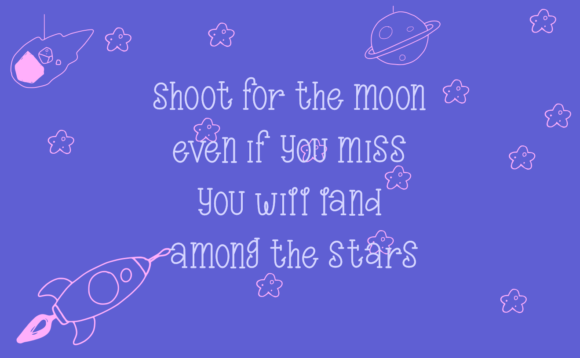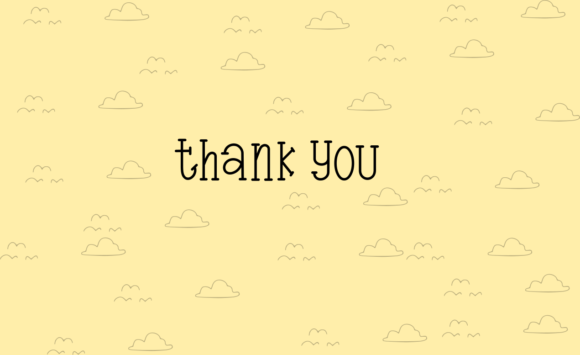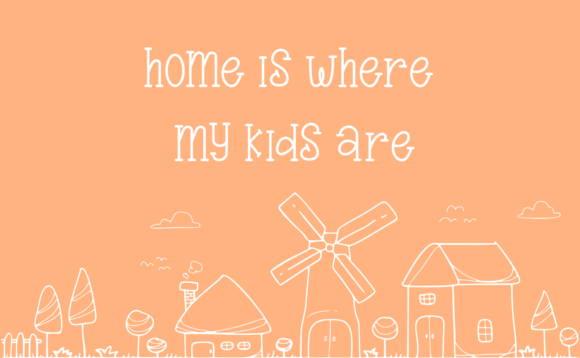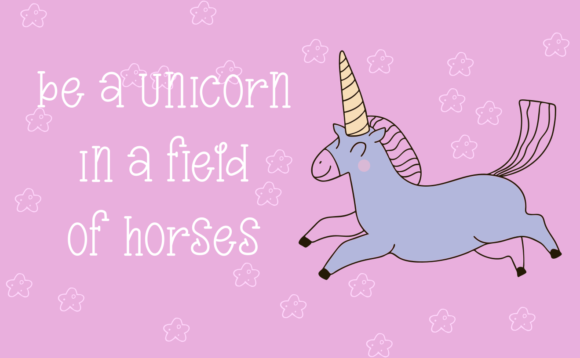
Fantasy Font
About Fantasy Font
Fantasy is a cute and quirky handwritten font that can be used for all chalkboard quotes or teaching material! Its authentic look will add a personal and realistic feel to your designs.